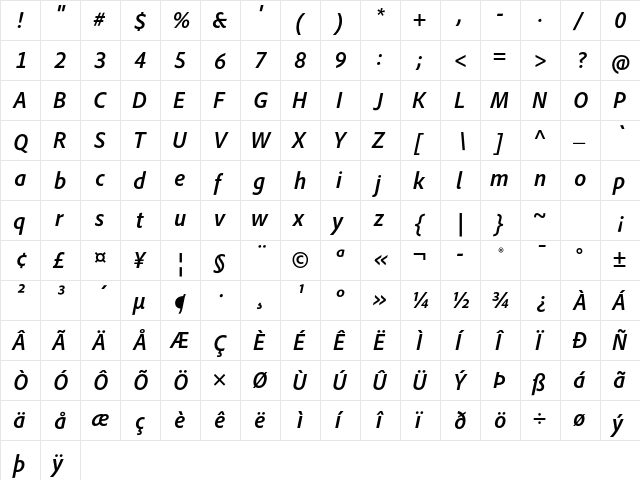
Adobe Clean SemiCondensed Bold Italic Font Preview
| Designer | Robert Slimbach |
Design Context for Adobe Clean SemiCondensed Typeface
Adobe Clean SemiCondensed is a composed and adaptable typeface that performs quietly and consistently across a wide range of design contexts. Its italic angle brings a sense of urgency and motion to the letterforms. The heavy weight commands attention and anchors typographic hierarchies. Its narrow stance lets it pack a punch even in space-constrained designs.
Pro Tip: Use Adobe Clean SemiCondensed for emphasis, pull quotes, and subheadings where its slanted energy can add rhythm to the layout.